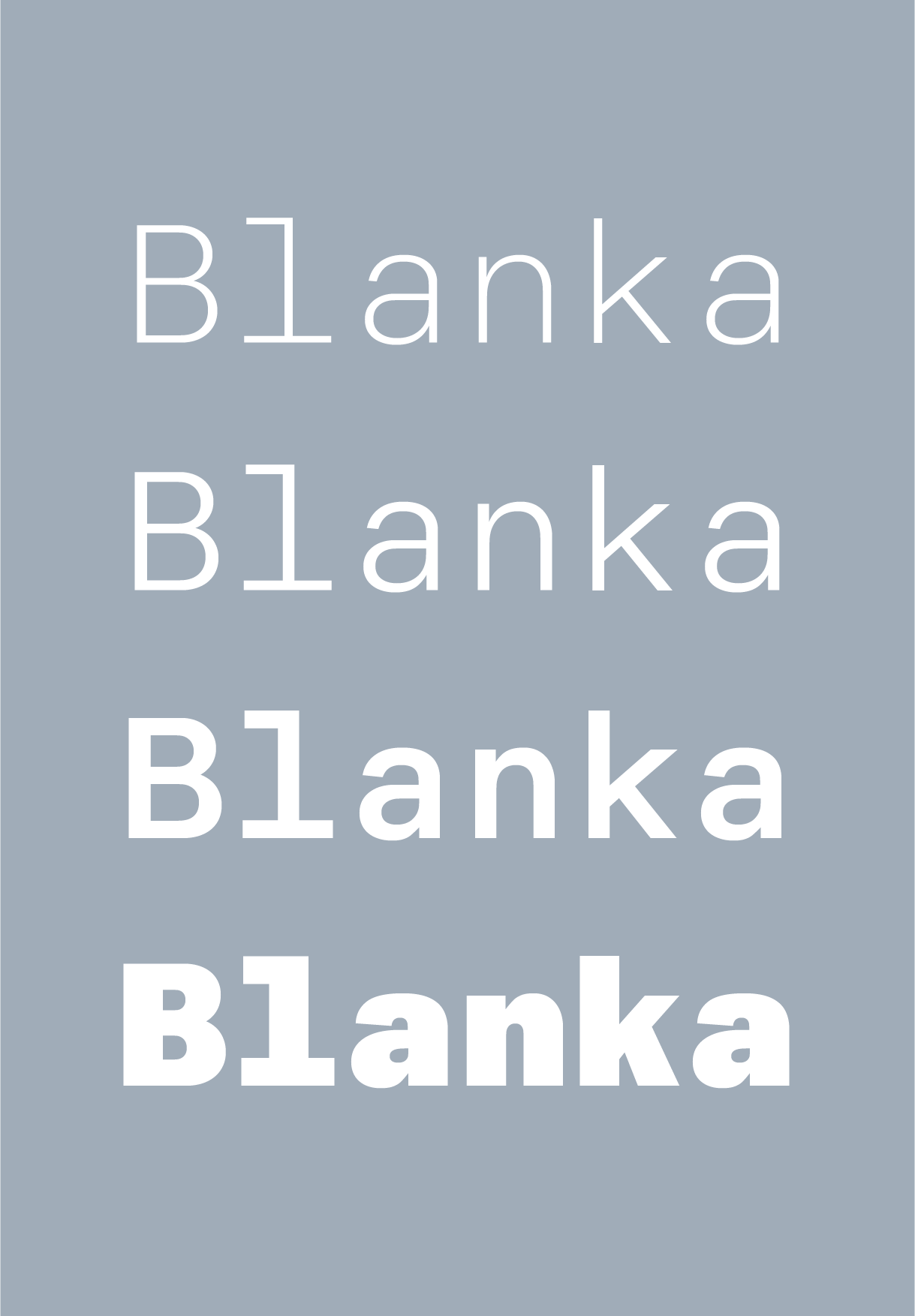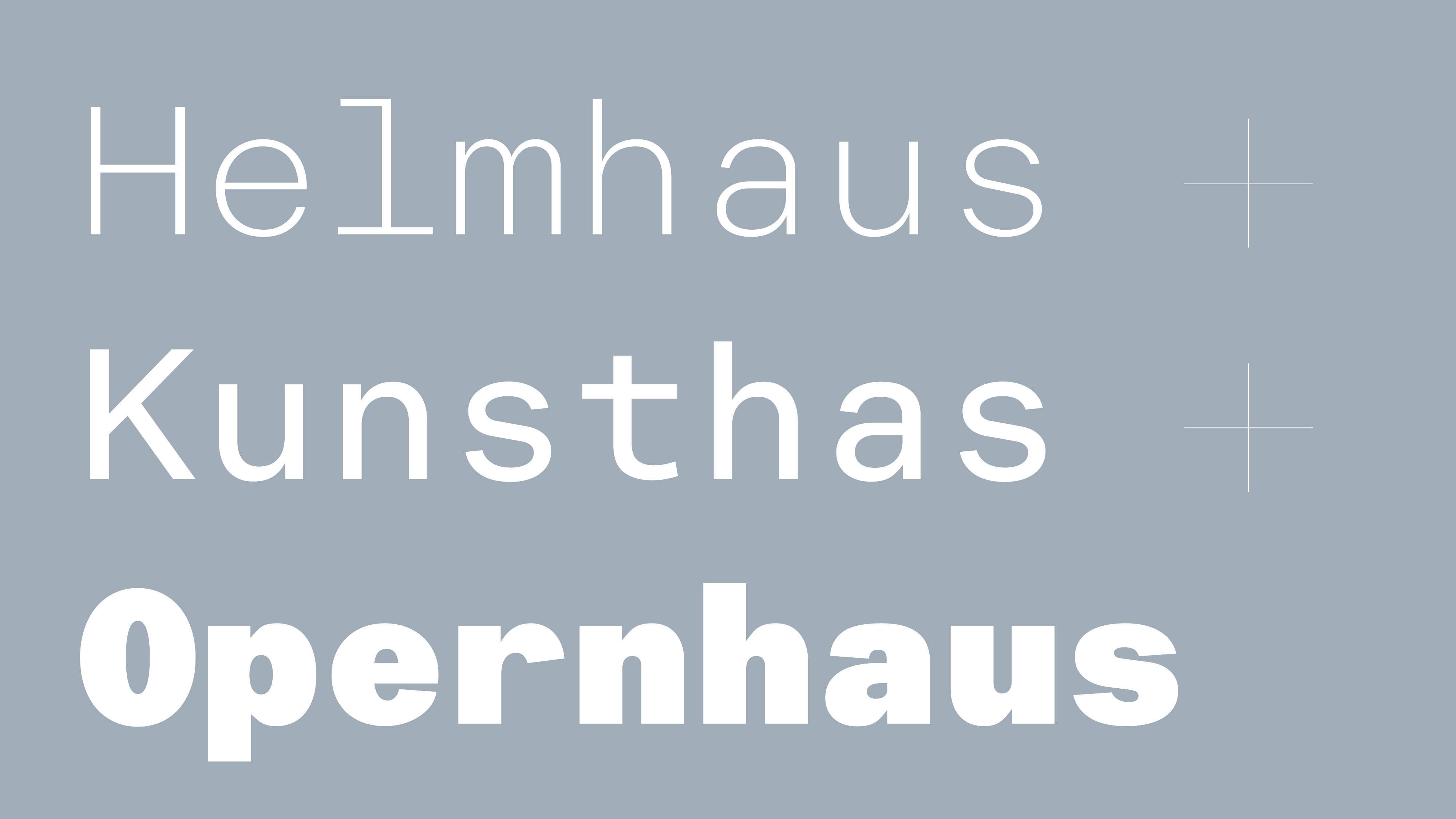
F37 Blanka Mono Font Sampler
Blanka is F37’s take on a clean, classic Swiss sans. Perfect for body copy, it’s economical, functional and very legible at small sizes.